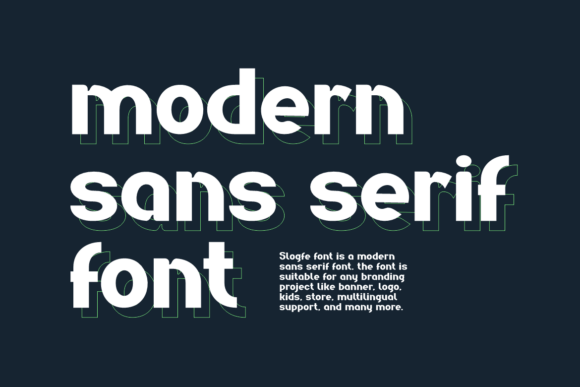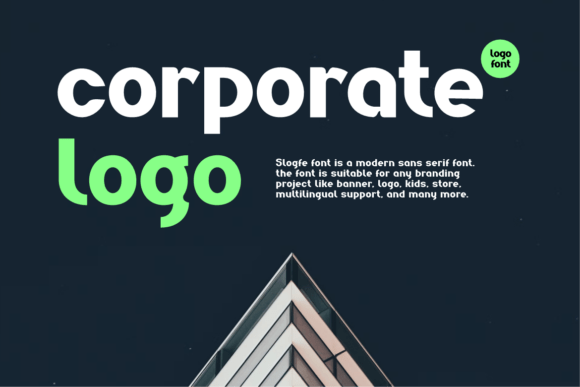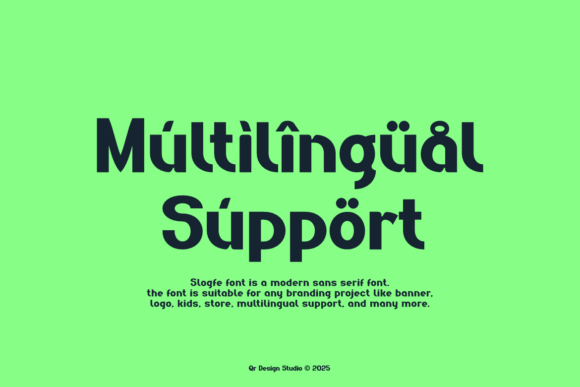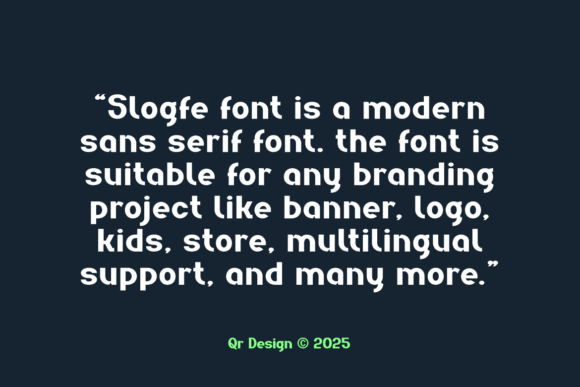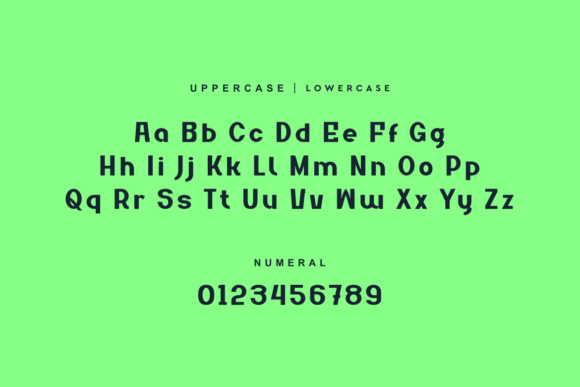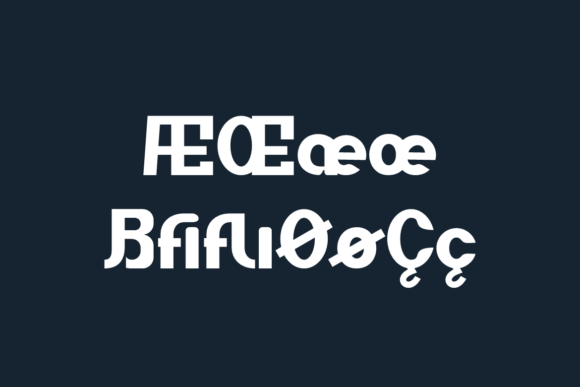
Introduction to Slogfe Font
Slogfe is a clean and versatile sans serif font made for modern branding and logo design.
With a soft geometric structure and balanced curves, itโs suitable for tech companies, startups, fashion brands, and minimalist design projects Slogfe offers readability with a touch of uniqueness.
Key Features of Slogfe Font
Why Choose Slogfe Font?